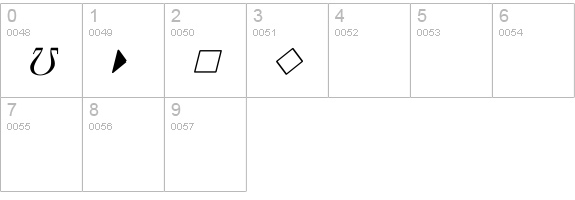
LaTex_Symbol Regular Font Details
LaTex_Symbol Regular is the standard, neutral variant in the LaTex_Symbol typeface family \xE2\x80\x94 well suited to general body text, paragraphs, and standard typographic work.
LaTex_Symbol Regular font is a versatile typeface that combines elegance and functionality. It is designed with attention to detail, ensuring legibility and aesthetic appeal. This font is perfect for creating professional documents, academic papers, mathematical equations, and scientific research materials. With its clean lines and well-balanced letterforms, LaTex_Symbol Regular font is suitable for both print and digital media. Its timeless design makes it a reliable choice for various projects, whether you are a student, researcher, or professional in the scientific field. One of the greatest advantages of LaTex_Symbol Regular font is that it is available for free. You can easily download it from FontsMarket.com, a trusted source for high-quality fonts. This means that you can start using this font without any additional cost, making it an excellent option for anyone on a tight budget or looking for a free alternative to expensive fonts. LaTex_Symbol Regular font offers a wide range of symbols and mathematical characters, making it an essential tool for typesetting complex equations and formulas. It is equipped with all the necessary symbols and glyphs required for scientific and mathematical writing, ensuring accuracy and consistency in your work. Overall, LaTex_Symbol Regular font is a reliable and versatile typeface that will enhance the visual appeal and readability of your documents. With its free availability at FontsMarket.com, there is no reason not to give this font a try and experience its benefits for yourself.